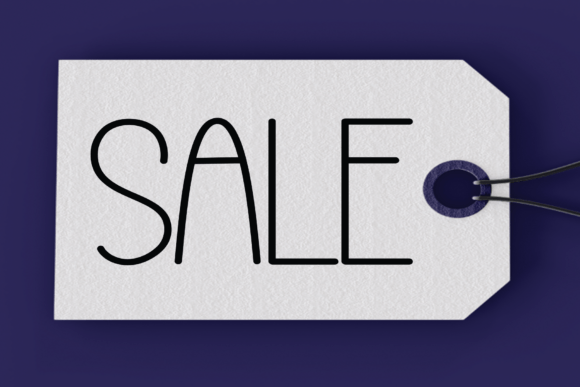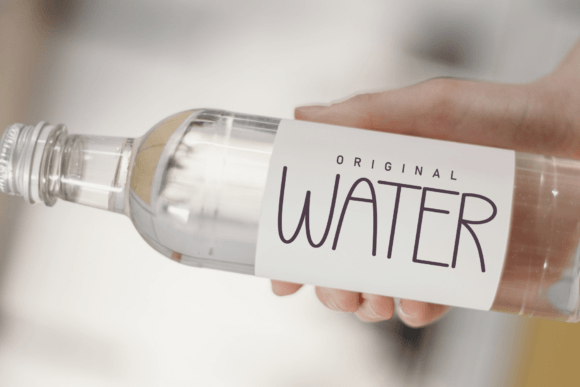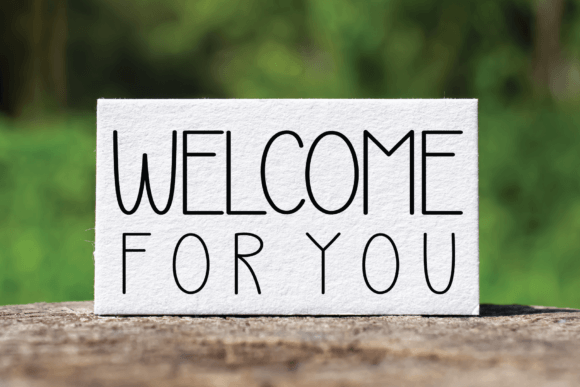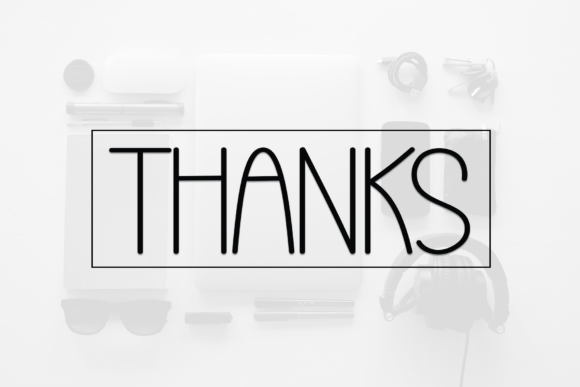
Discover the Elegance of Biography Font: A Timeless Handwritten Font
Are you a designer or crafter looking for a font that exudes elegance and sophistication? Look no further than Biography Font, a beautiful handwritten font that is sure to capture your heart. With its incredibly distinct and timeless style, Biography Font is perfect for a wide range of projects, from wedding invitations and branding materials to digital designs and craft projects.
What is Biography Font?
Biography Font is a carefully crafted handwritten font that boasts an elegant touch, making it ideal for designers and crafters who want to add a touch of sophistication to their work. This stunning font is designed to be versatile, allowing you to use it for a variety of projects, from formal events to everyday designs.
Key Features of Biography Font
- Elegant and Refined: Biography Font features an elegant and refined style that is perfect for designs that require a touch of sophistication.
- Handwritten with Love: This beautiful font is handwritten with love, giving it a personal and unique touch that sets it apart from other fonts.
- Distinct and Timeless: Biography Font has an incredibly distinct and timeless style that will make your designs stand out from the crowd.
- Perfect for Various Projects: Whether you’re working on a wedding invitation, branding material, or digital design, Biography Font is the perfect choice.
Why Choose Biography Font?
There are many reasons why Biography Font is a top choice among designers and crafters. Here are just a few:
- Unique Style: Biography Font has a unique style that will set your designs apart from others.
- High-Quality: Biography Font is a high-quality font that is designed to produce crisp and clear text.
- Support for Multiple Languages: This font supports multiple languages, making it a great choice for international designers and crafters.
Tips and Tricks for Using Biography Font
Here are some tips and tricks for using Biography Font:
- Pair with Other Fonts: Pair Biography Font with other fonts to create a unique and interesting design.
- Use for Headings and Titles: Use Biography Font for headings and titles to add a touch of elegance to your design.
In conclusion, Biography Font is a beautiful handwritten font that is perfect for designers and crafters who want to add a touch of elegance and sophistication to their work. With its incredibly distinct and timeless style, Biography Font is sure to capture your heart and become a staple in your design collection.